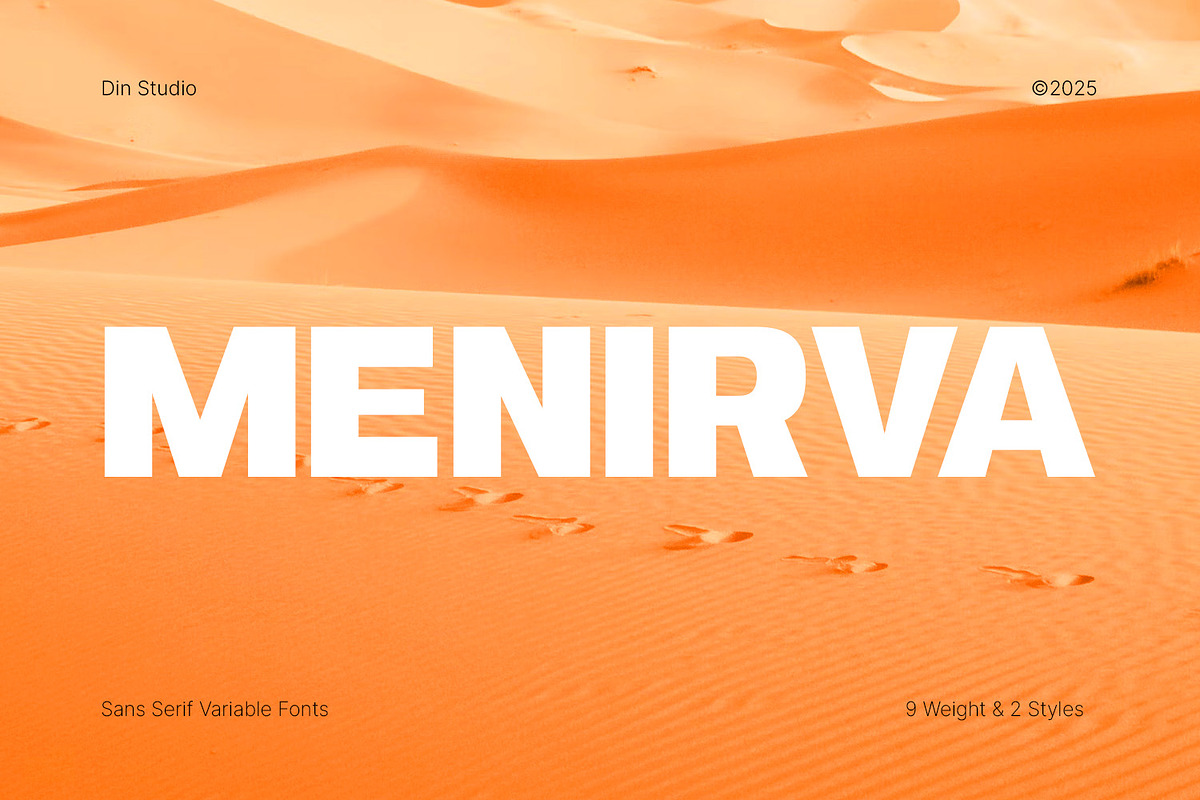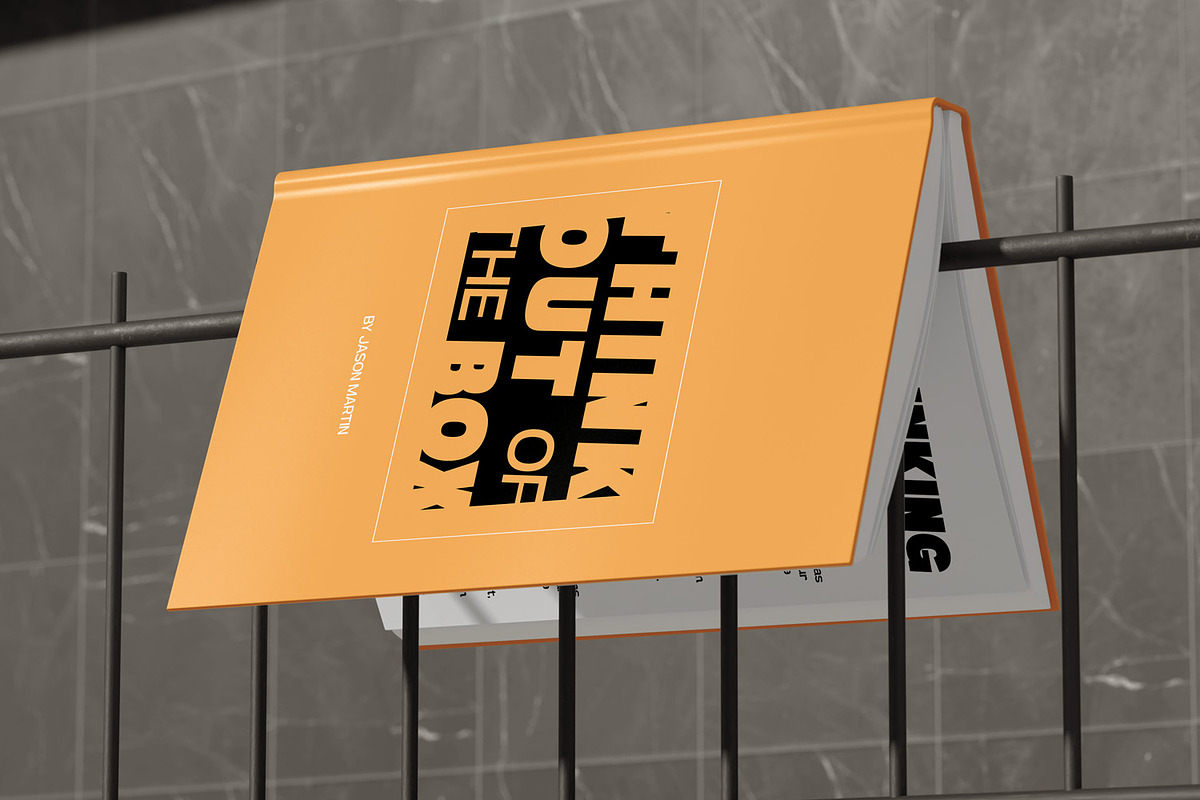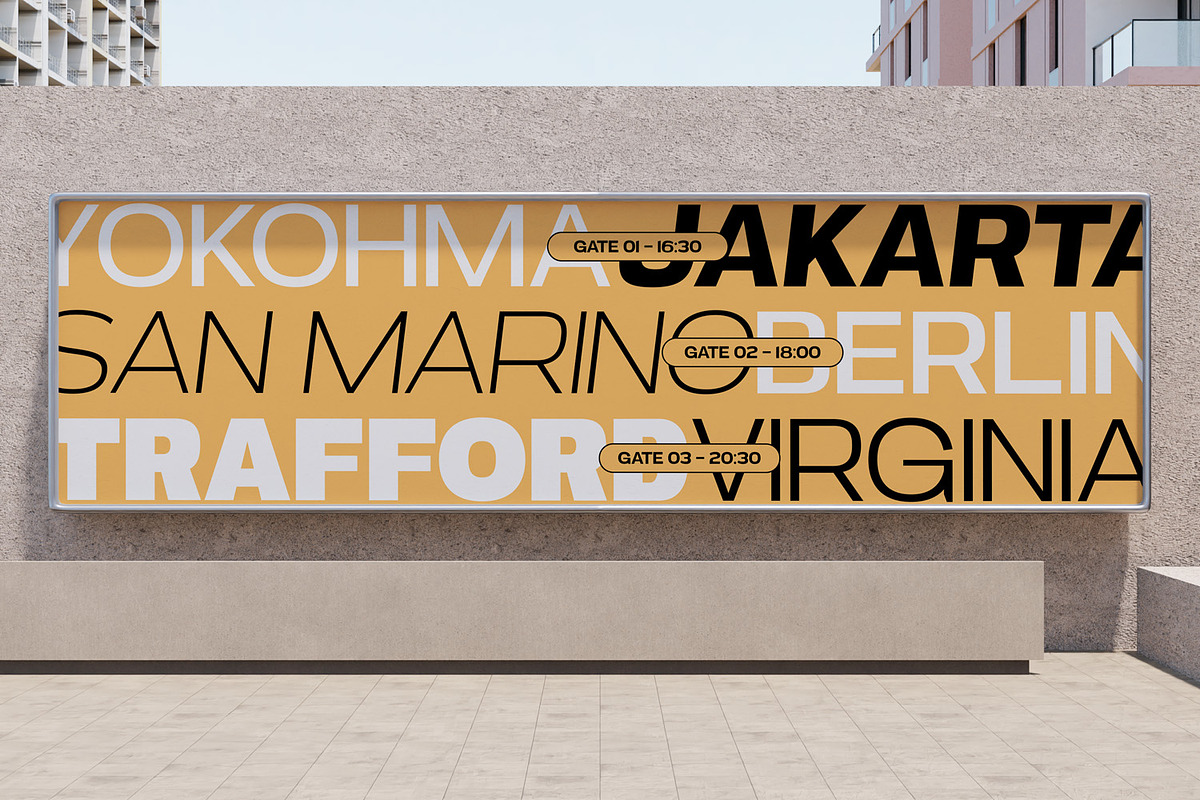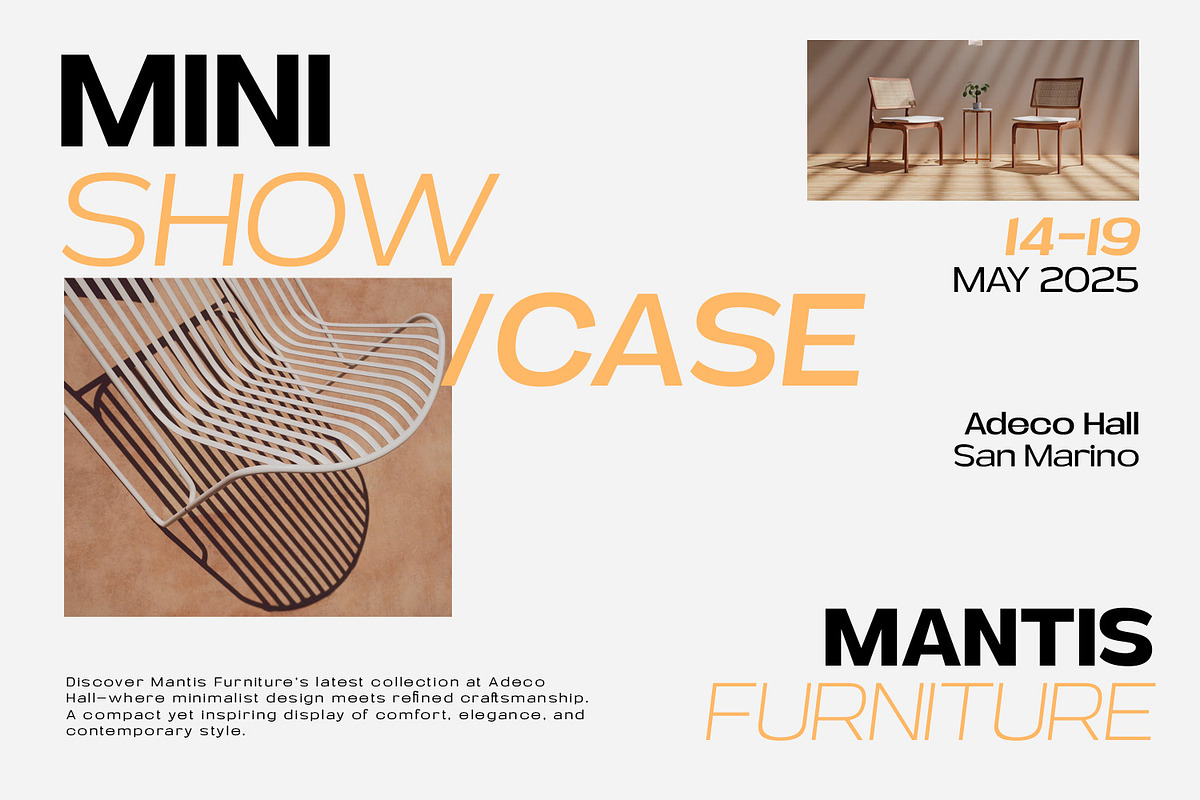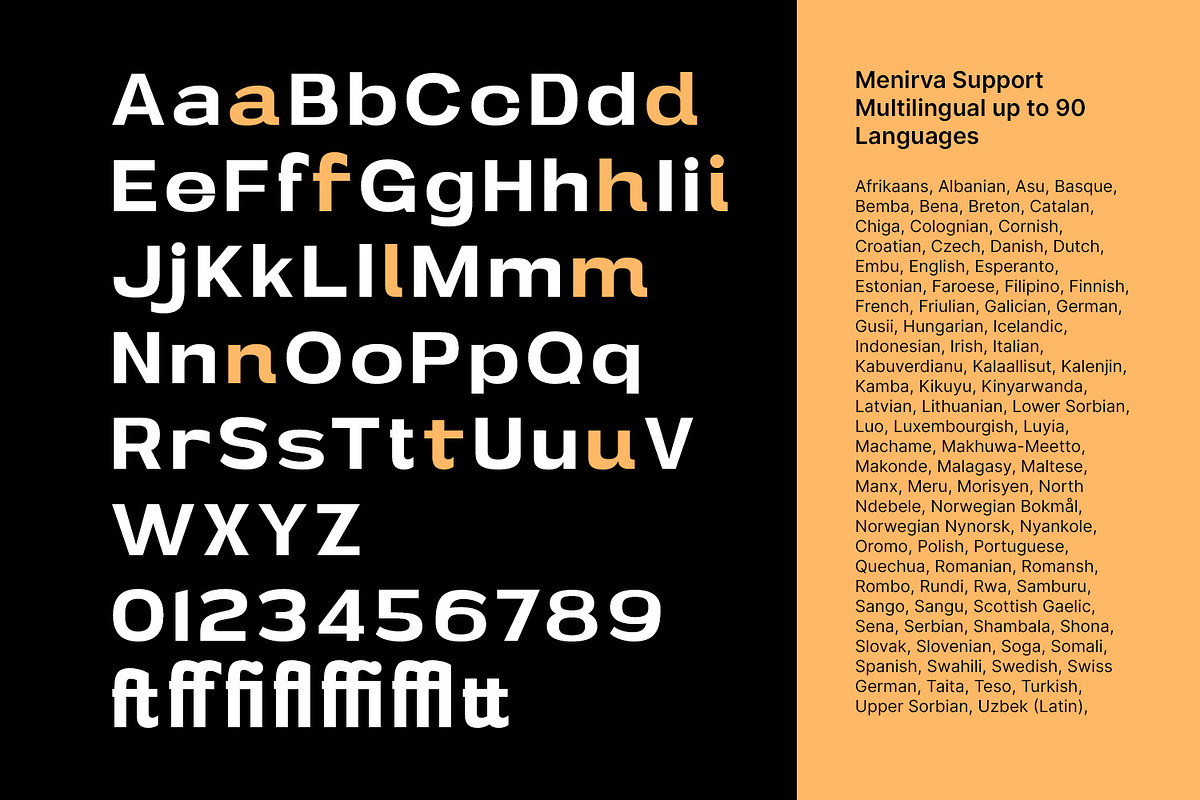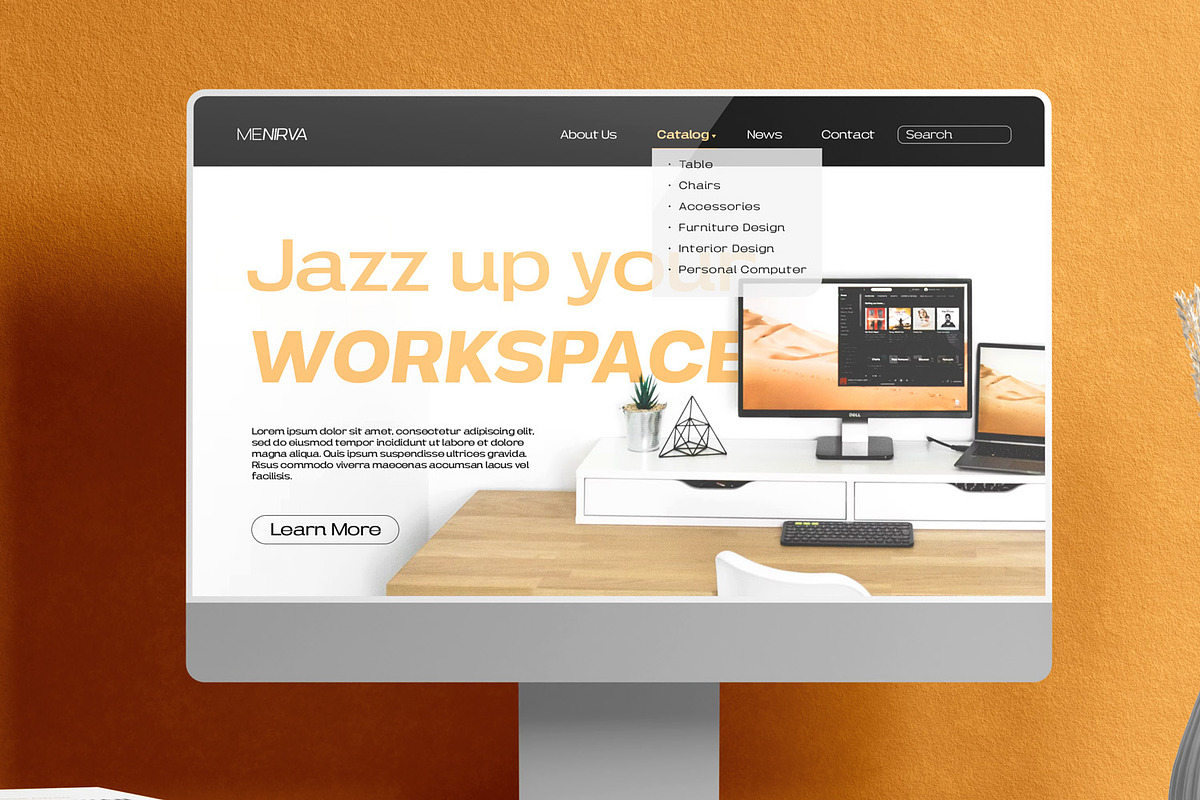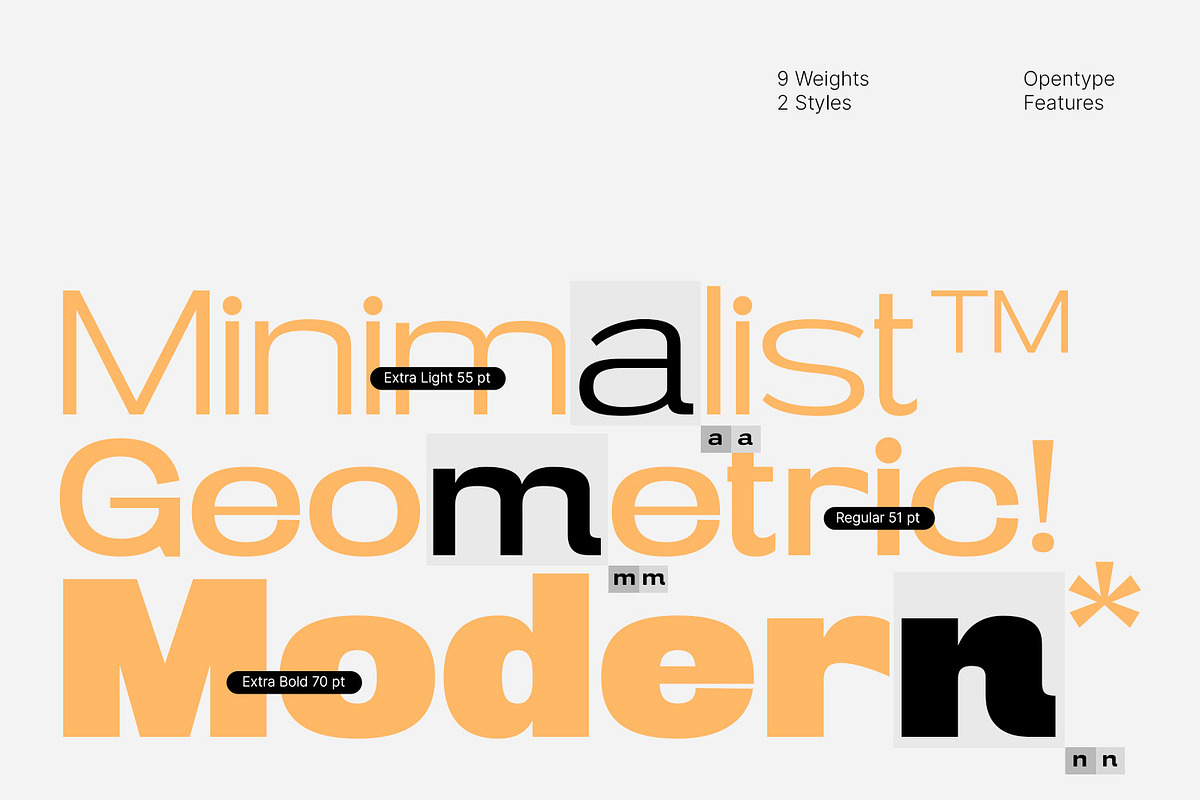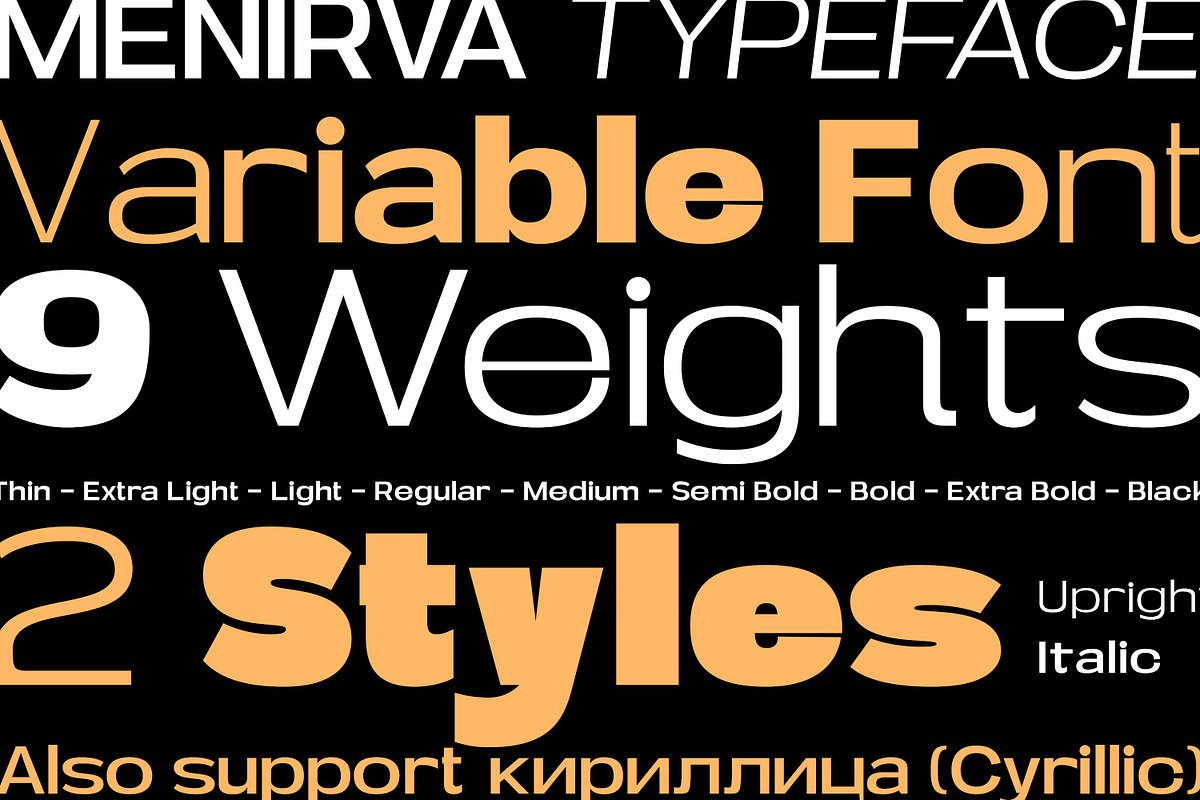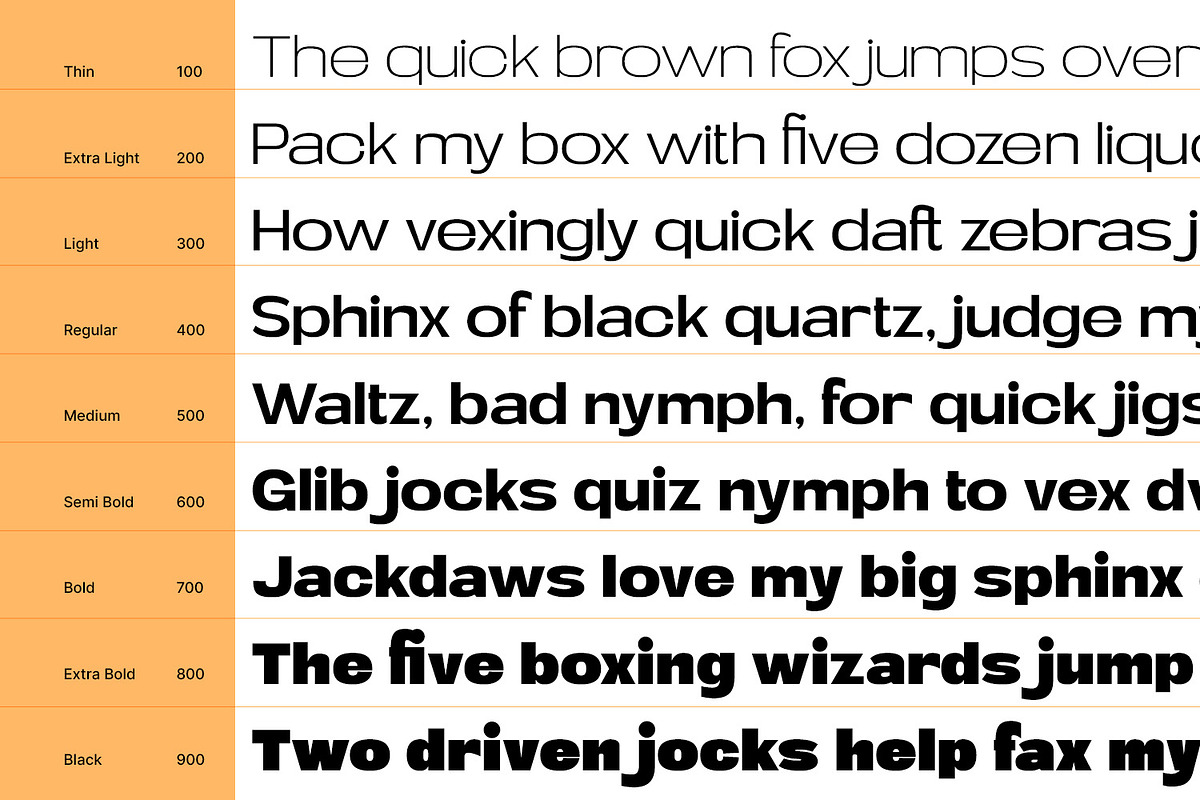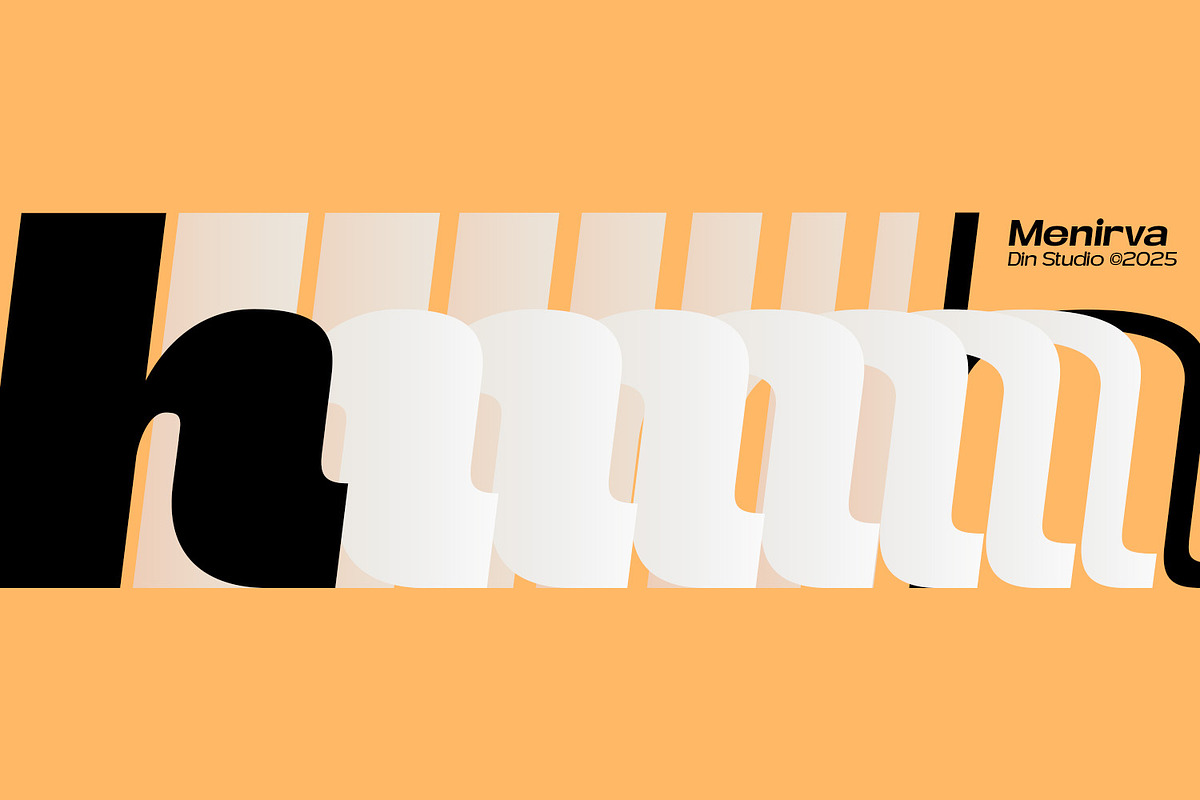
Menirva
Menirva is a sophisticated serif font family crafted to embody minimalist elegance. Spanning nine distinctive weights from Thin to Black, Menirva offers designers a versatile typographic palette that adapts seamlessly across applications. Its clean, thoughtfully refined letterforms deliver a timeless aesthetic, combining subtle sophistication with modern simplicity. Menirva brings a quiet confidence and graceful clarity to any project. In addition, enjoy the features here.
Features: Multilingual Supports PUA Encoded Numerals and Punctuations
Menirva fits in bold branding, packaging, posters, headlines, editorial designs, and many more designs. Find out more ways to use this font by taking a look at the font preview.